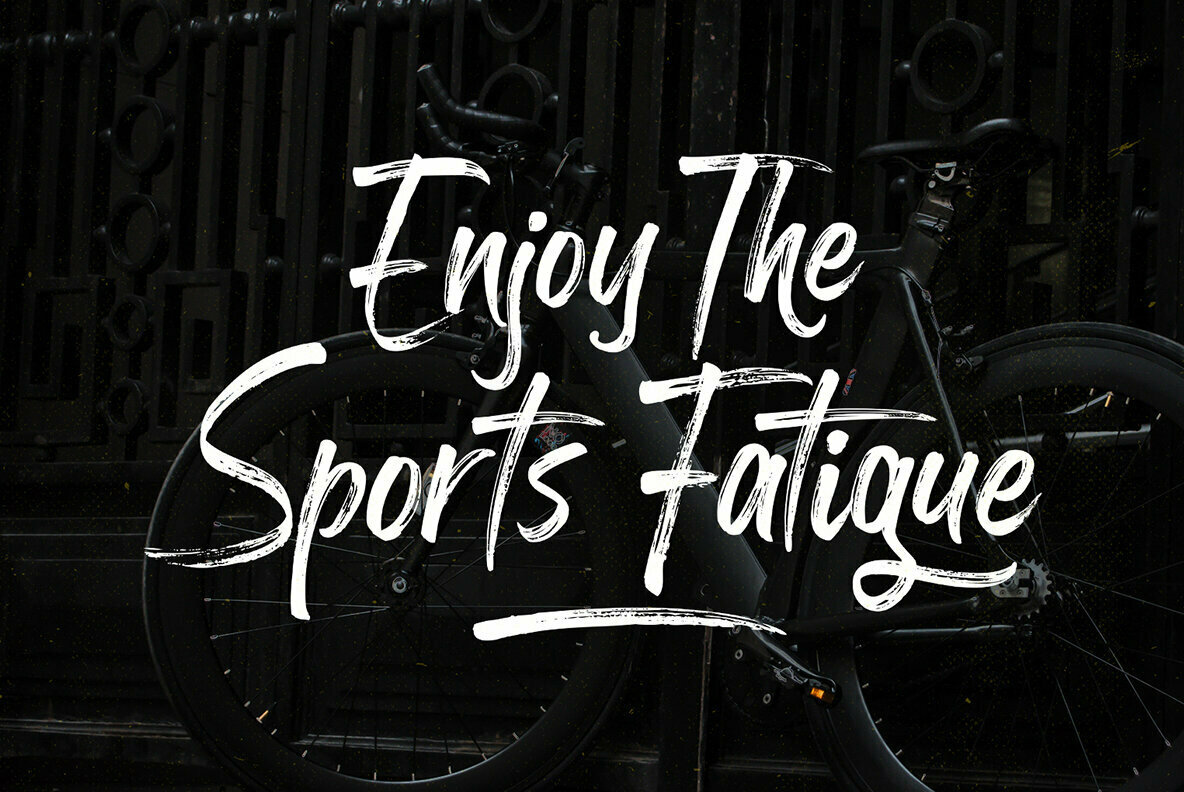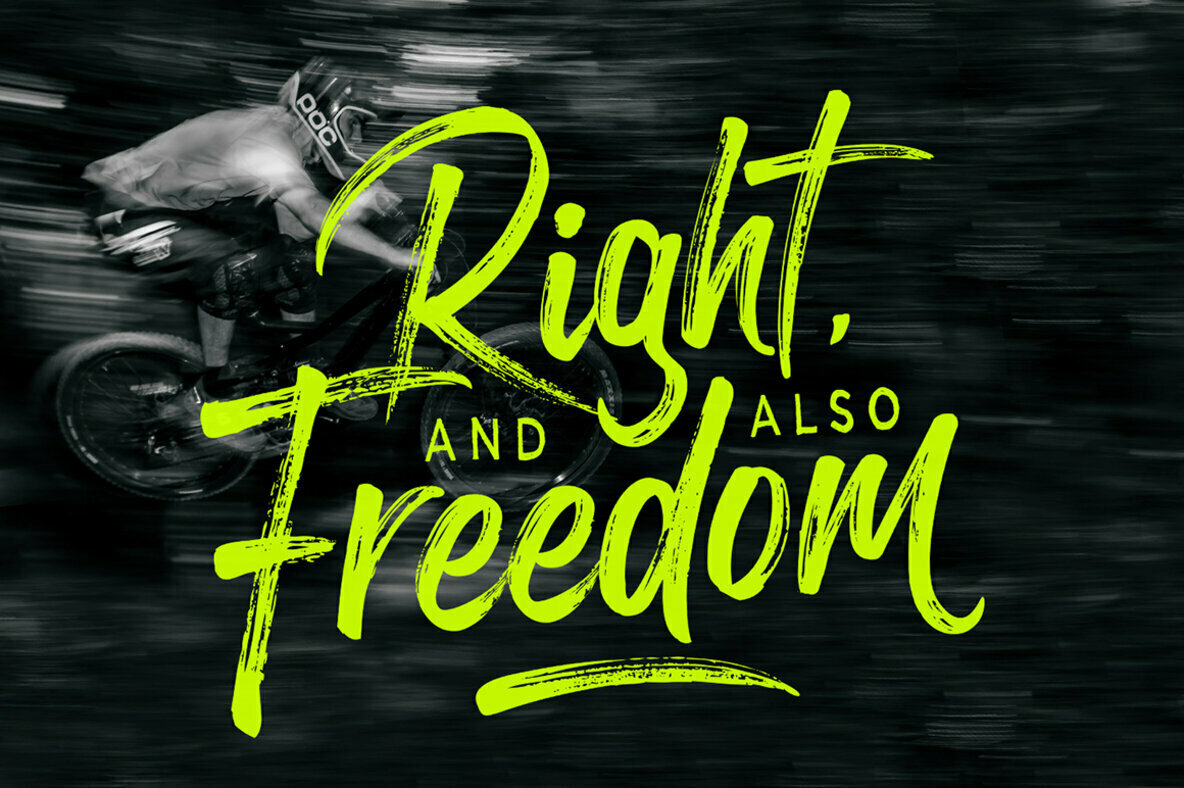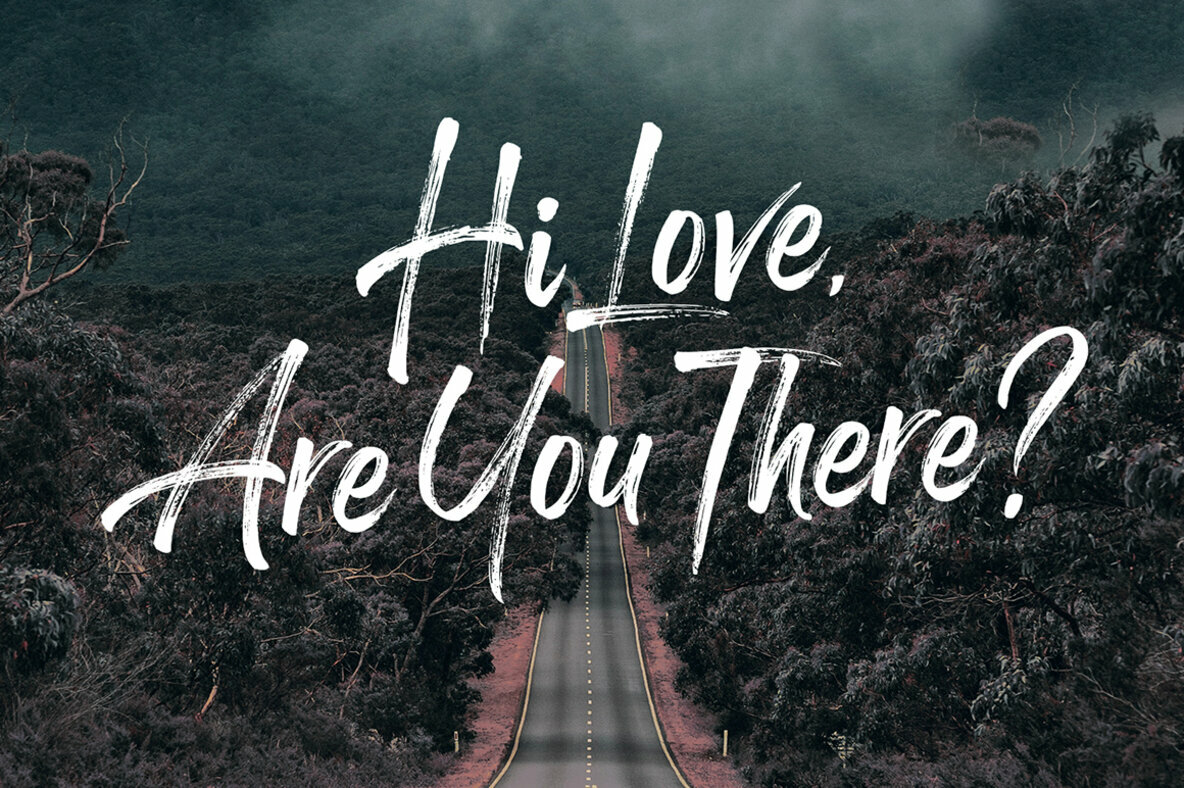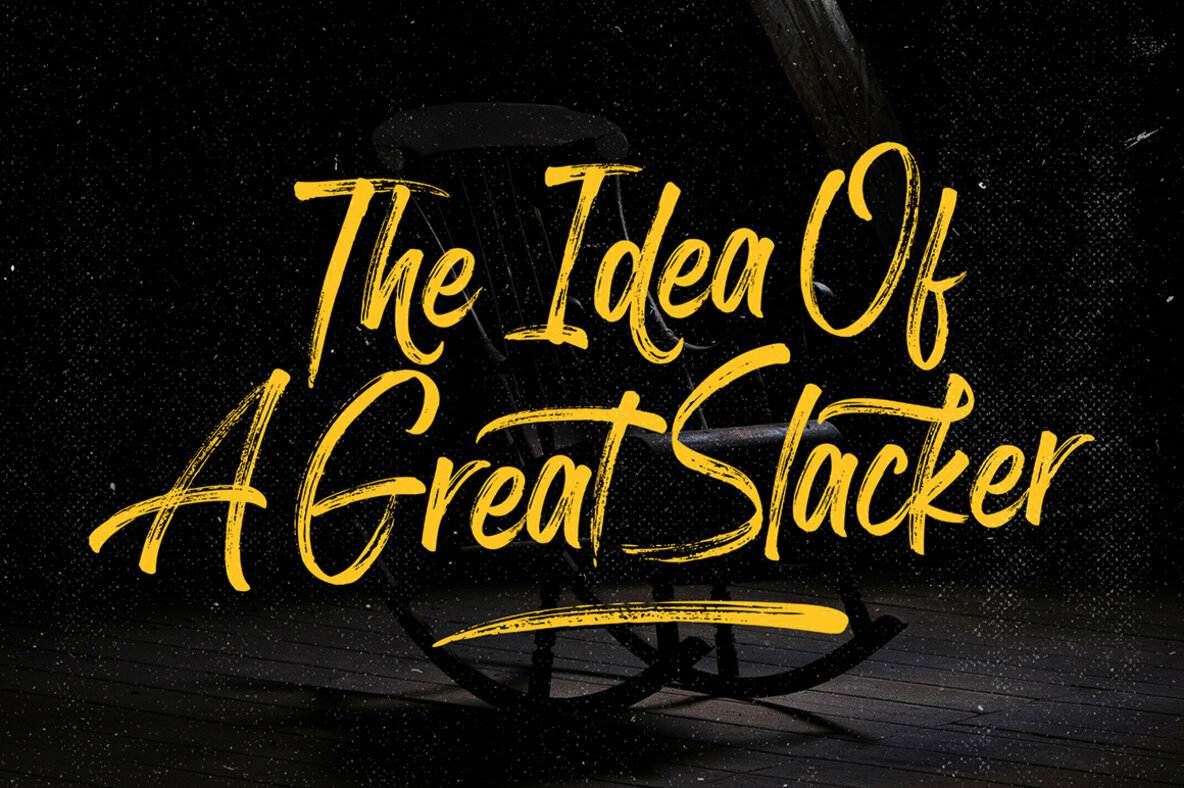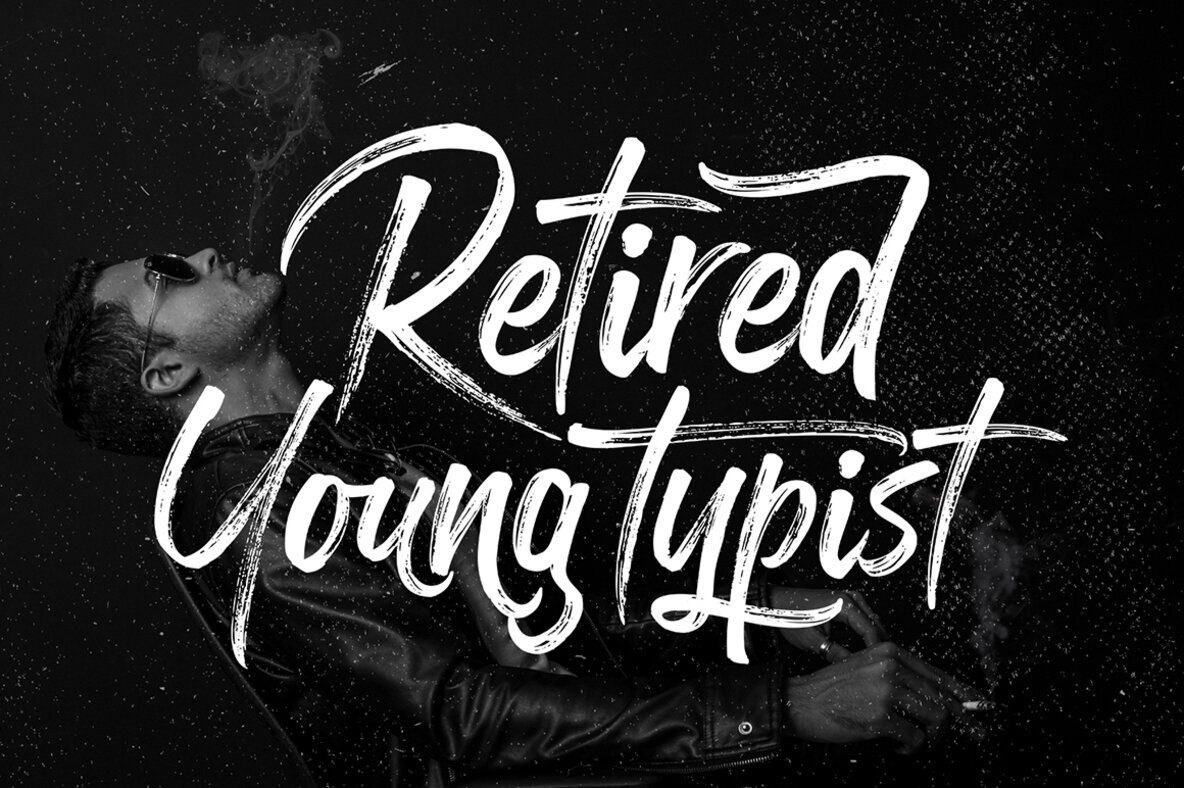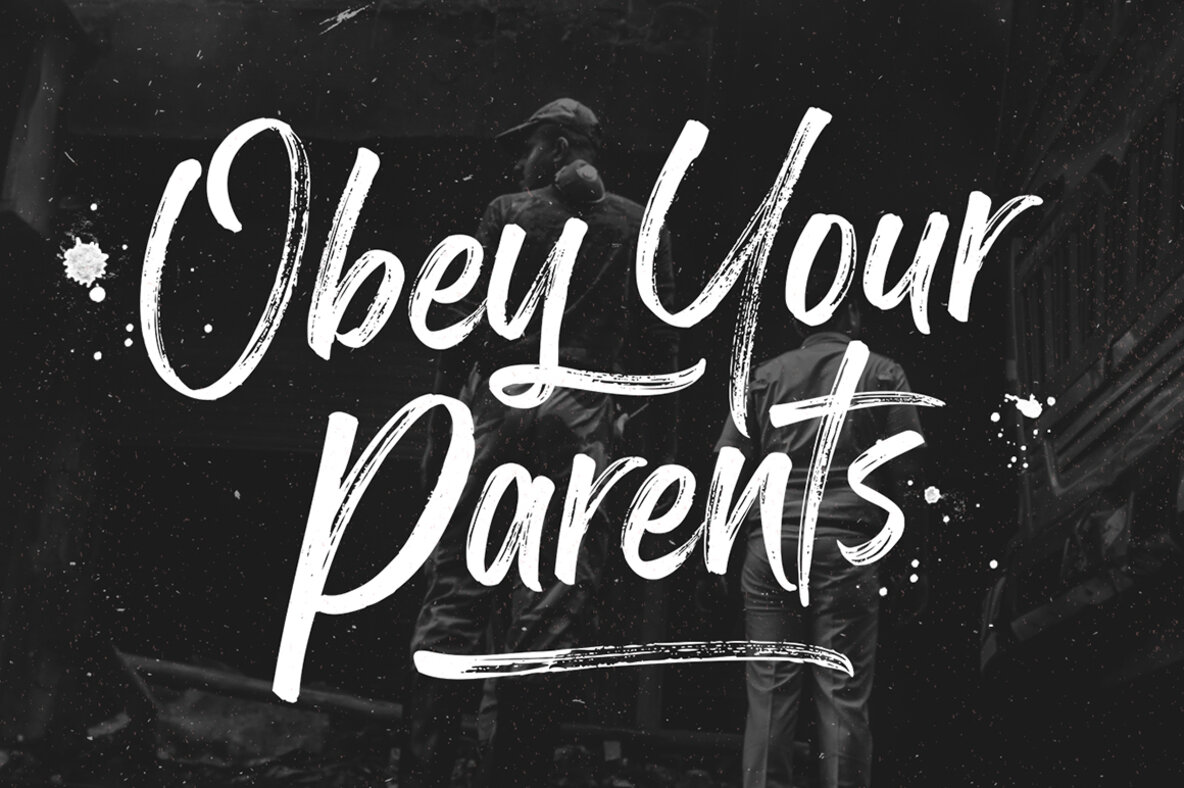
Rogthem Font
Expressive and dynamic, Rogthem by Dhan Studio brings an artistic touch to modern typography. This textured brush font captures the essence of handmade creativity with its irregular baseline, enhancing designs with a sense of natural spontaneity.Rogthem: Textured Brush Font with a Natural Flair